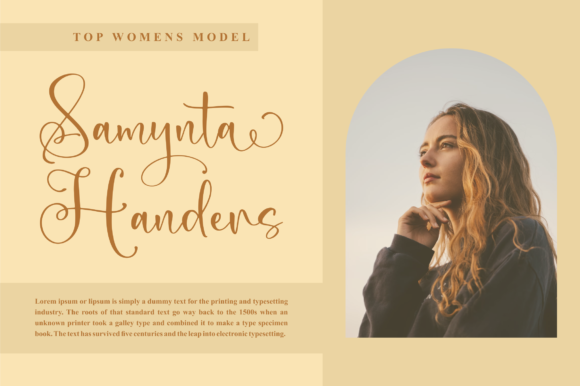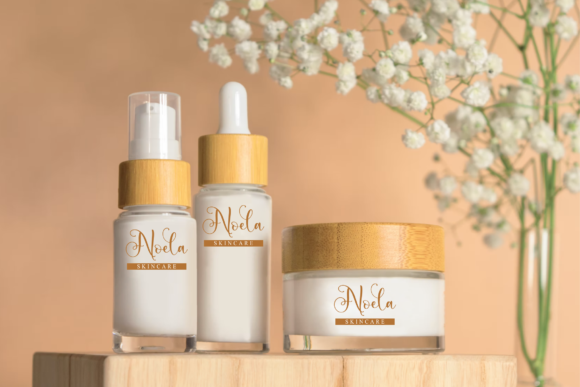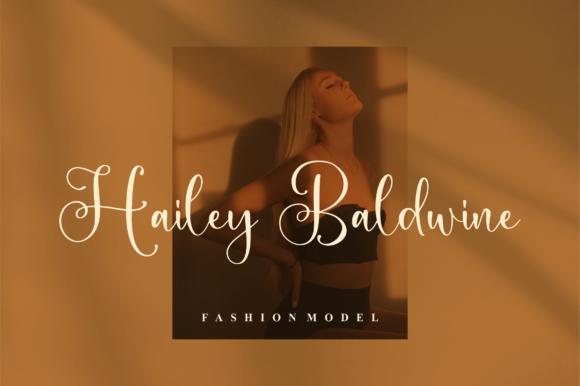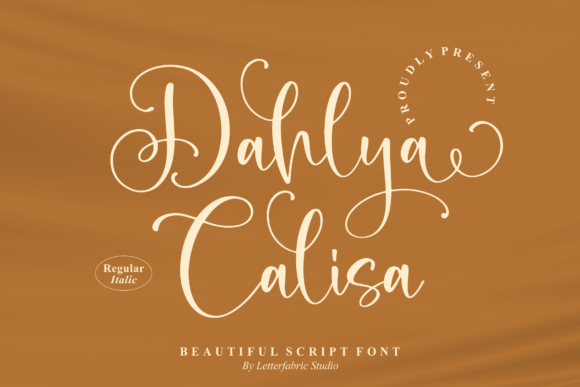
Introduction to Dahlya Calisa Font
Dahlya Calisa is a gorgeous script font.
It is suitable for various projects such as: logos, branding projects, homeware designs, product packaging, mugs, quotes, watermark, special events, and all your other lovely projects that need a beautiful script taste Dahlya Calisa is PUA encoded which means you can access all of the glyphs and swashes with ease.
Key Features of Dahlya Calisa Font
Why Choose Dahlya Calisa Font?
Dahlya Calisa Font offers exceptional quality and versatility, making it a valuable addition to your design toolkit. Whether you’re creating for personal projects or commercial use, Dahlya Calisa Font delivers professional results.